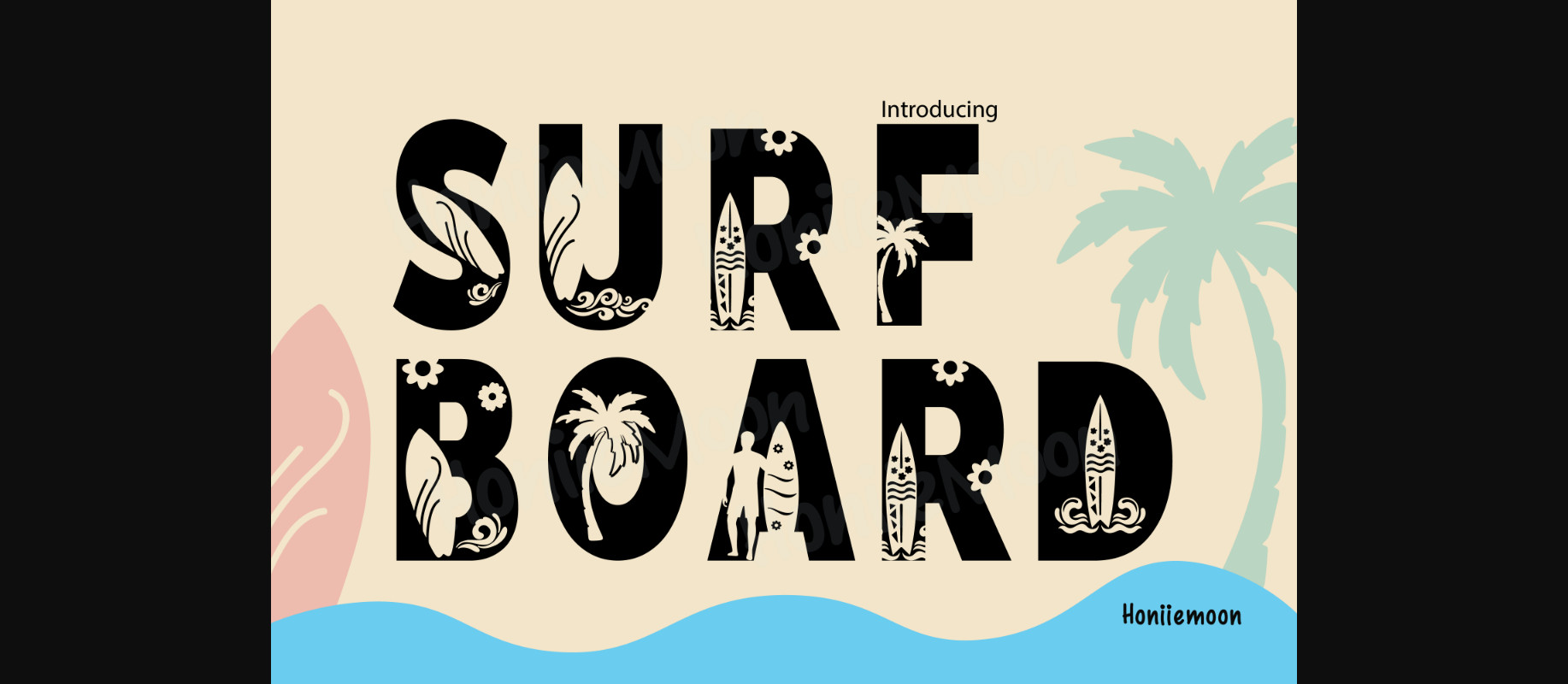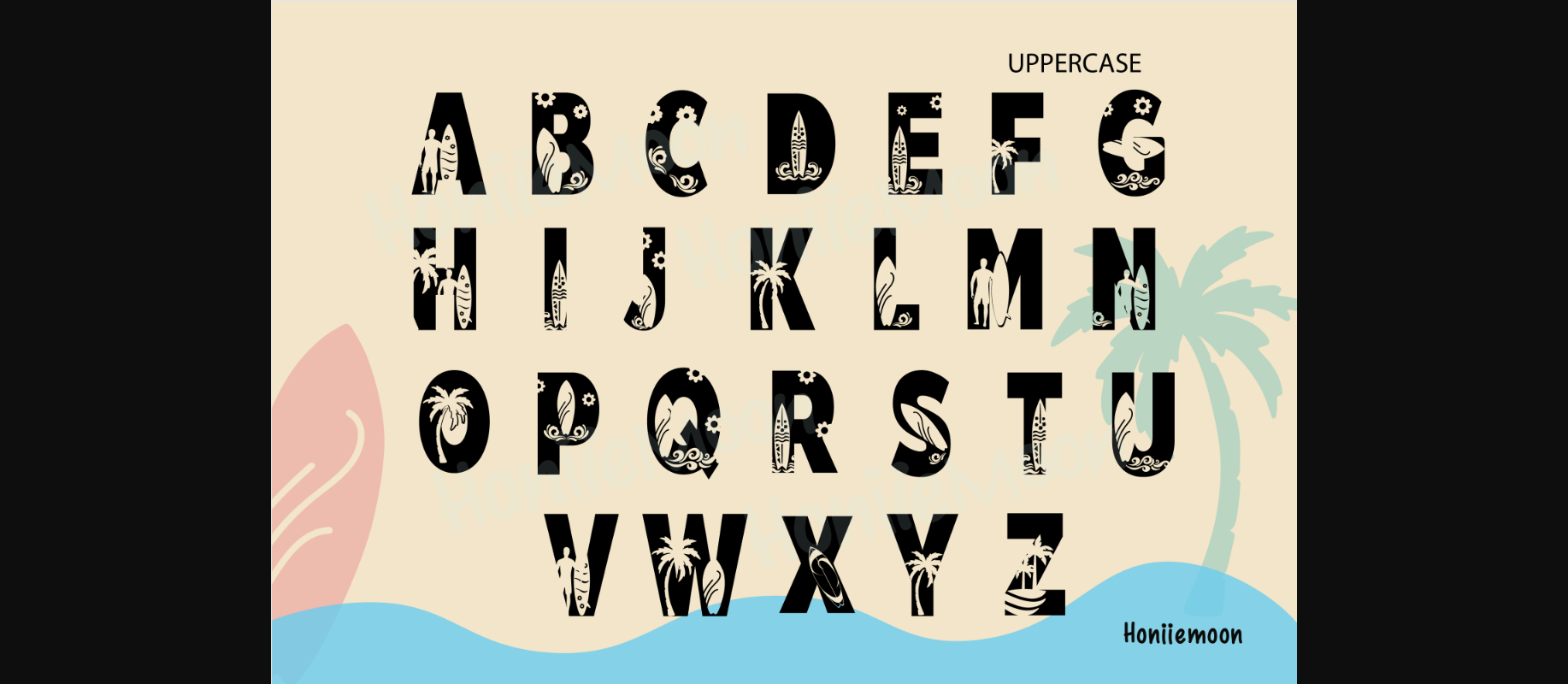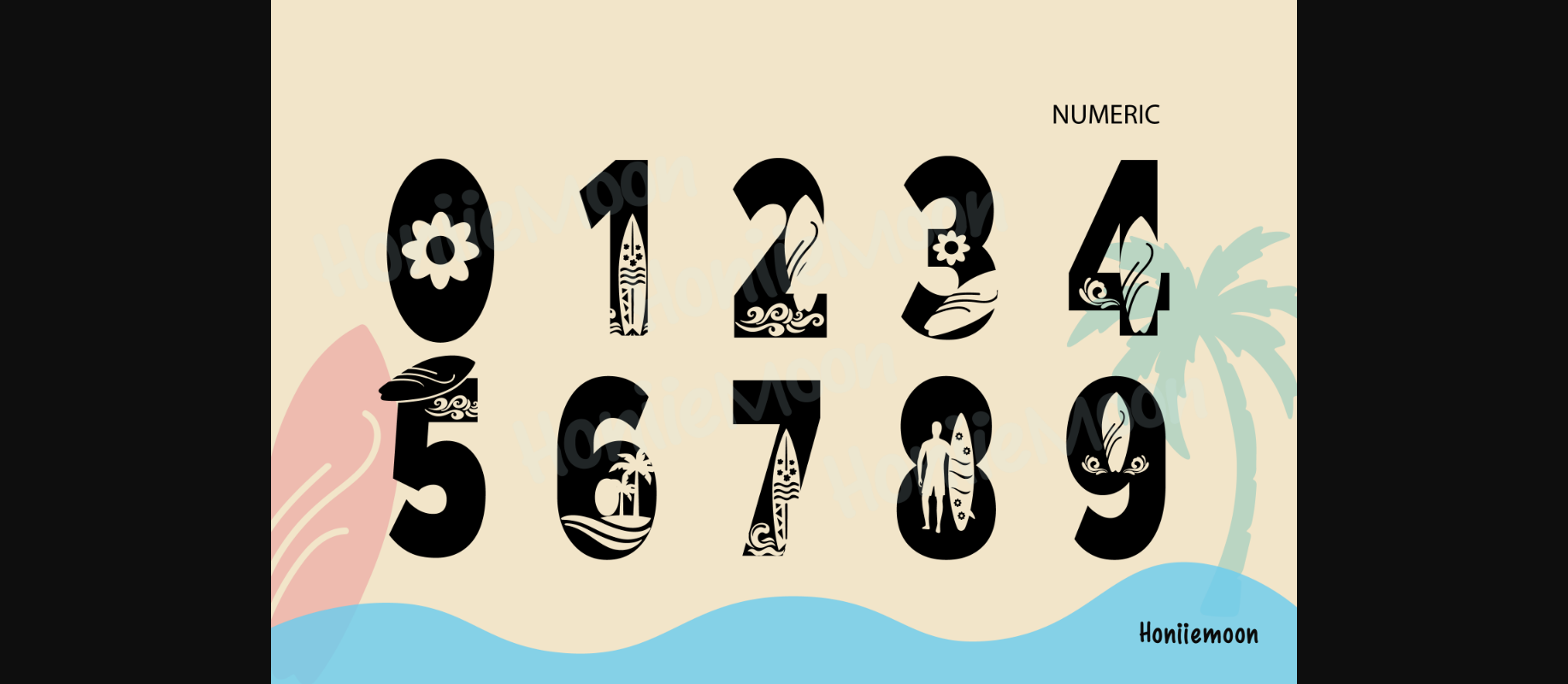
Surf Boards Font
About Surf Boards Font
Surf Boards is a cool, original and fun decorative font. It looks both cute and authentic and it will enhance each of your designs. The only limit is your imagination.